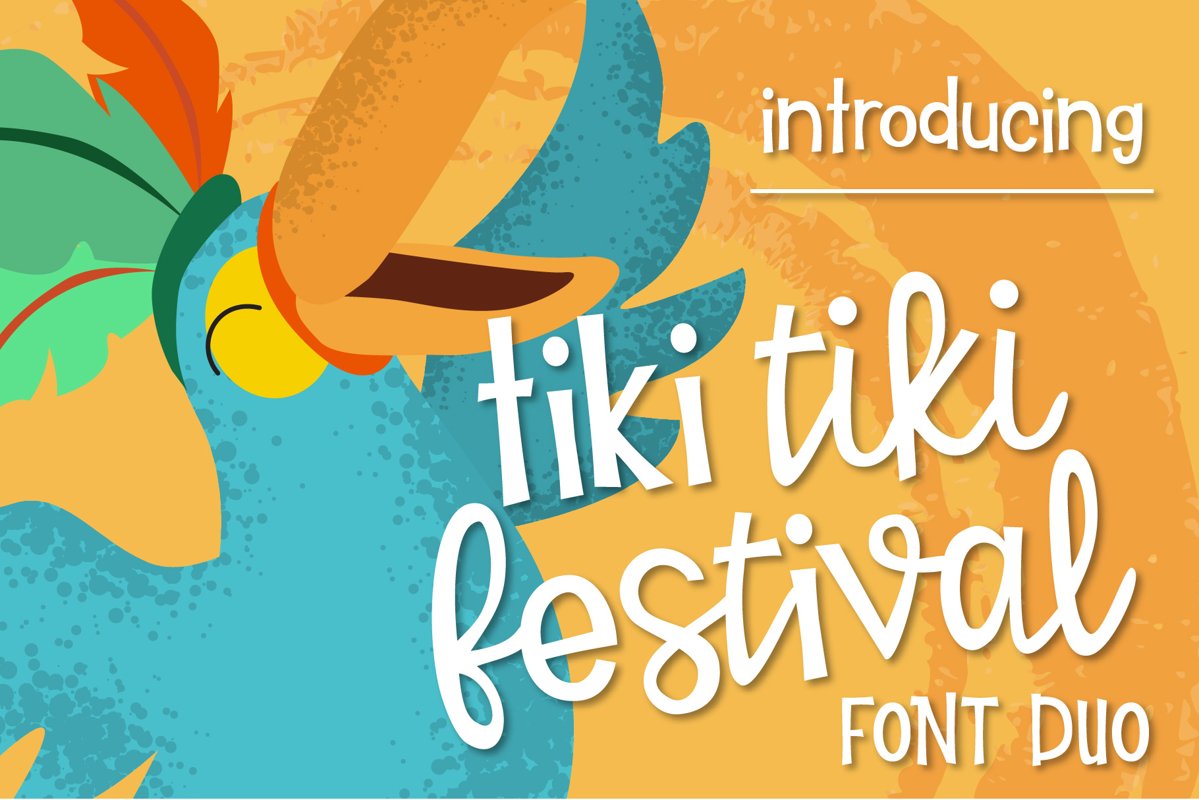
Tiki Tiki Festival Font Duo
Introducing, Tiki Tiki Festival Font Duo. This font duo was inspired by the end of summer vibe. Enjoy!. This PUA font is perfect for professional designer, social media, or crafters.